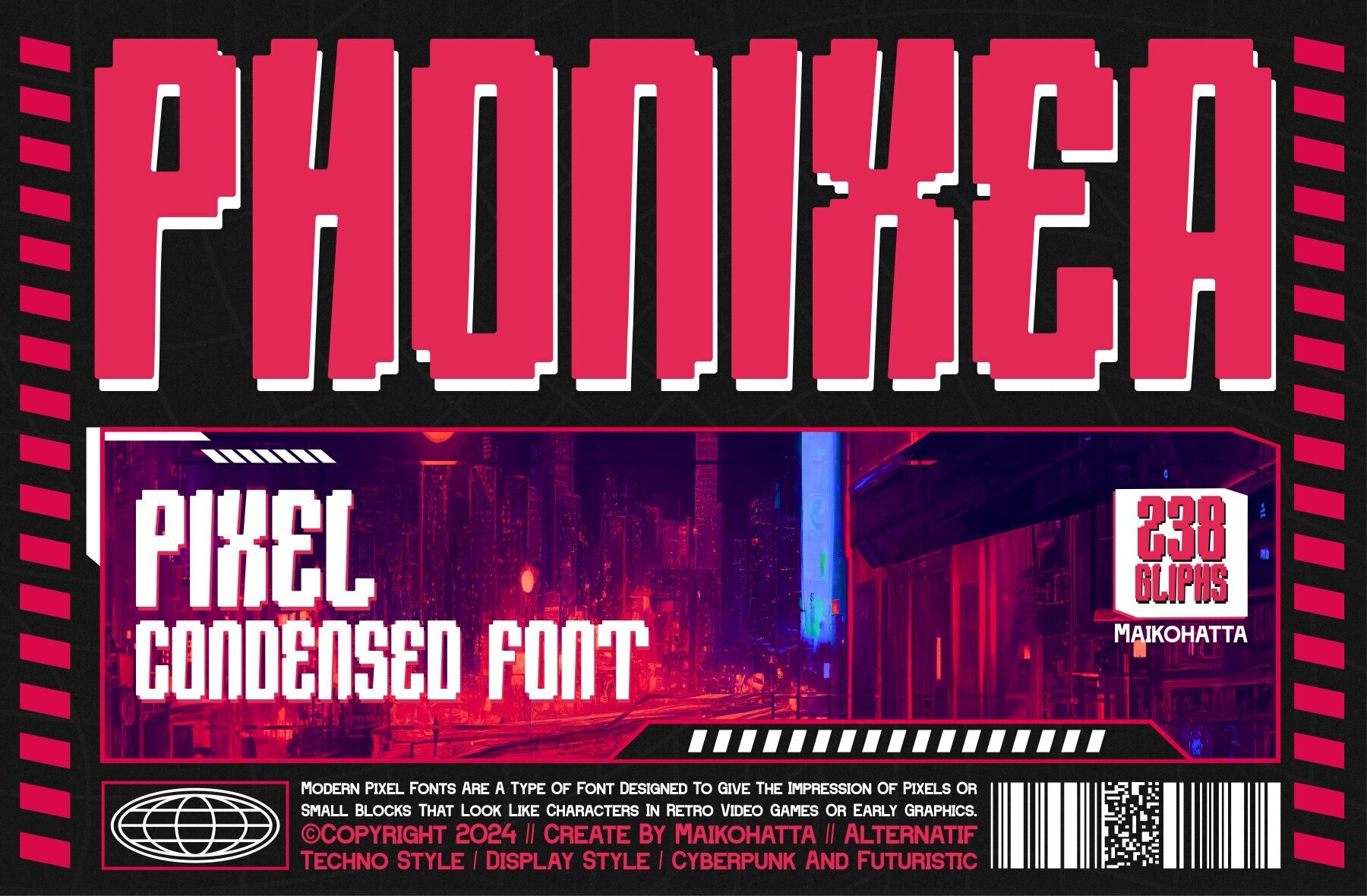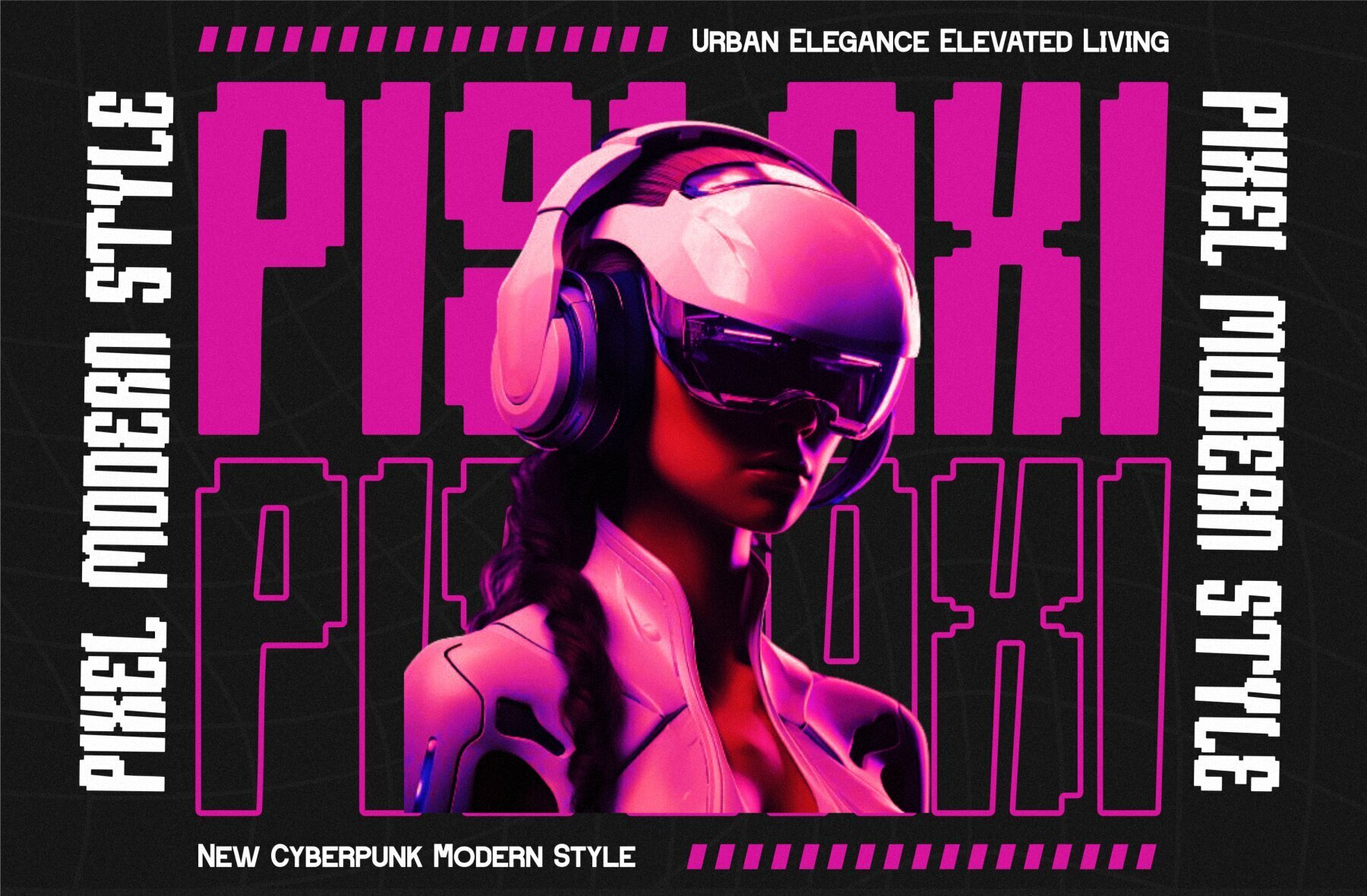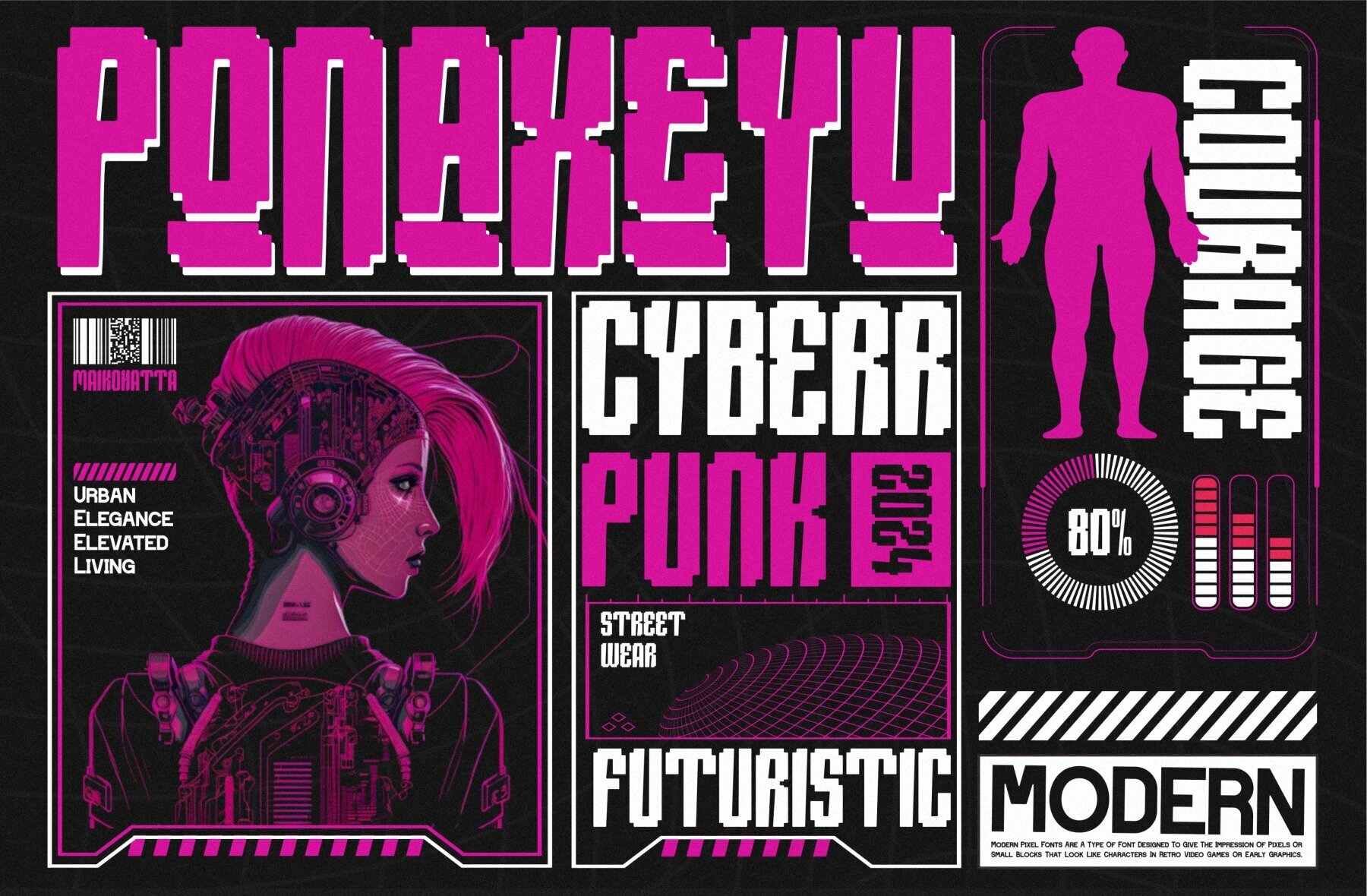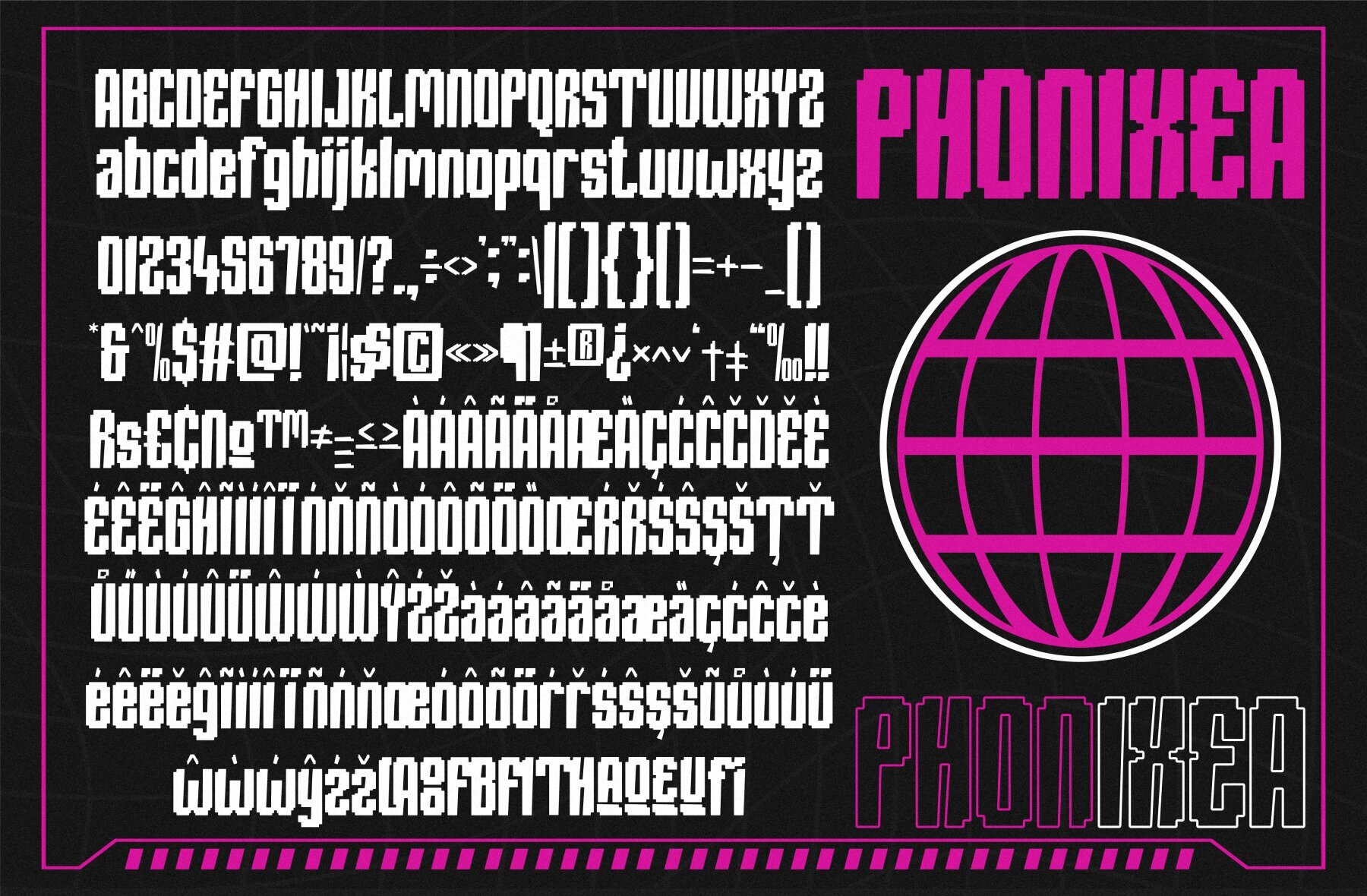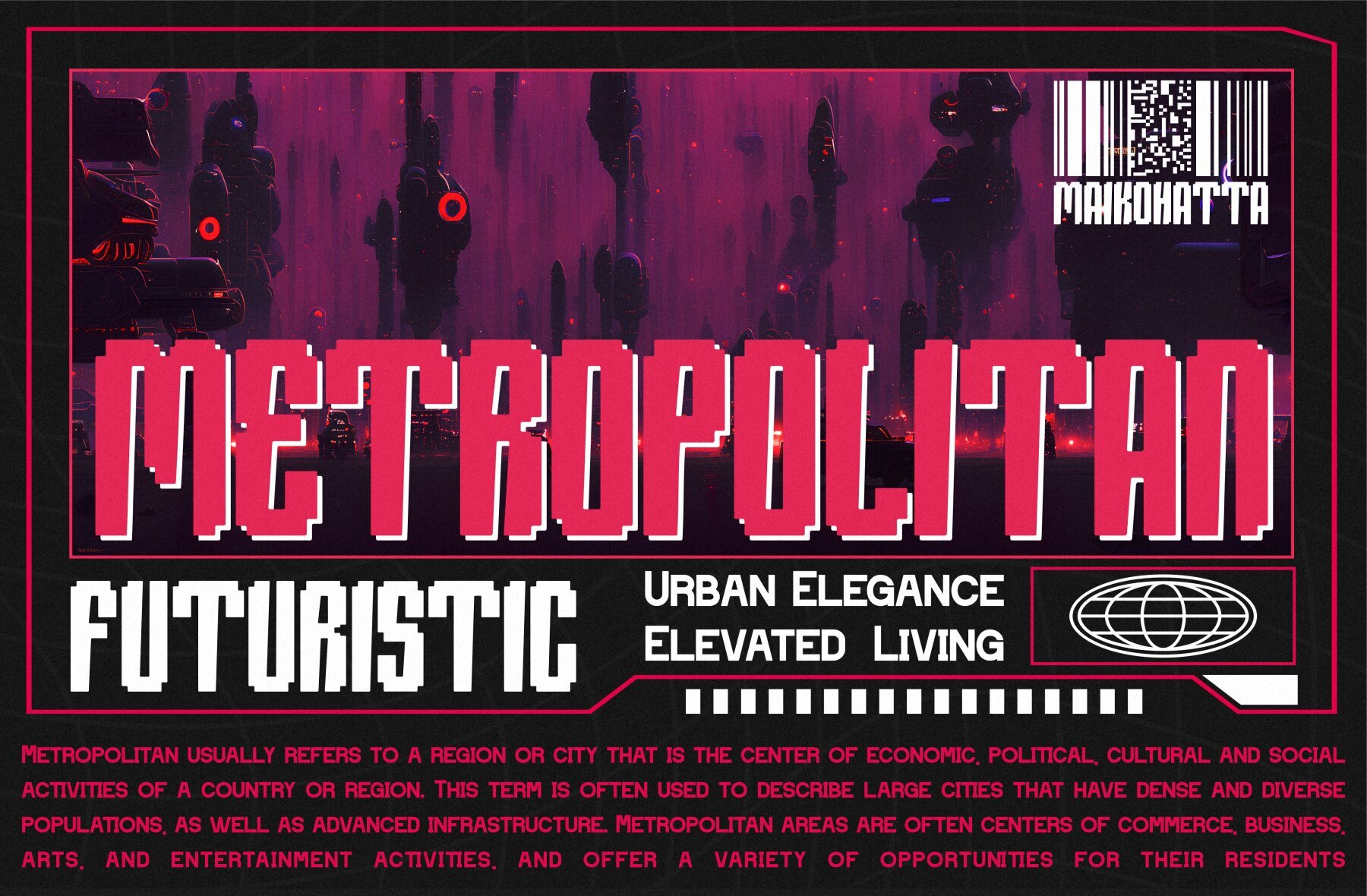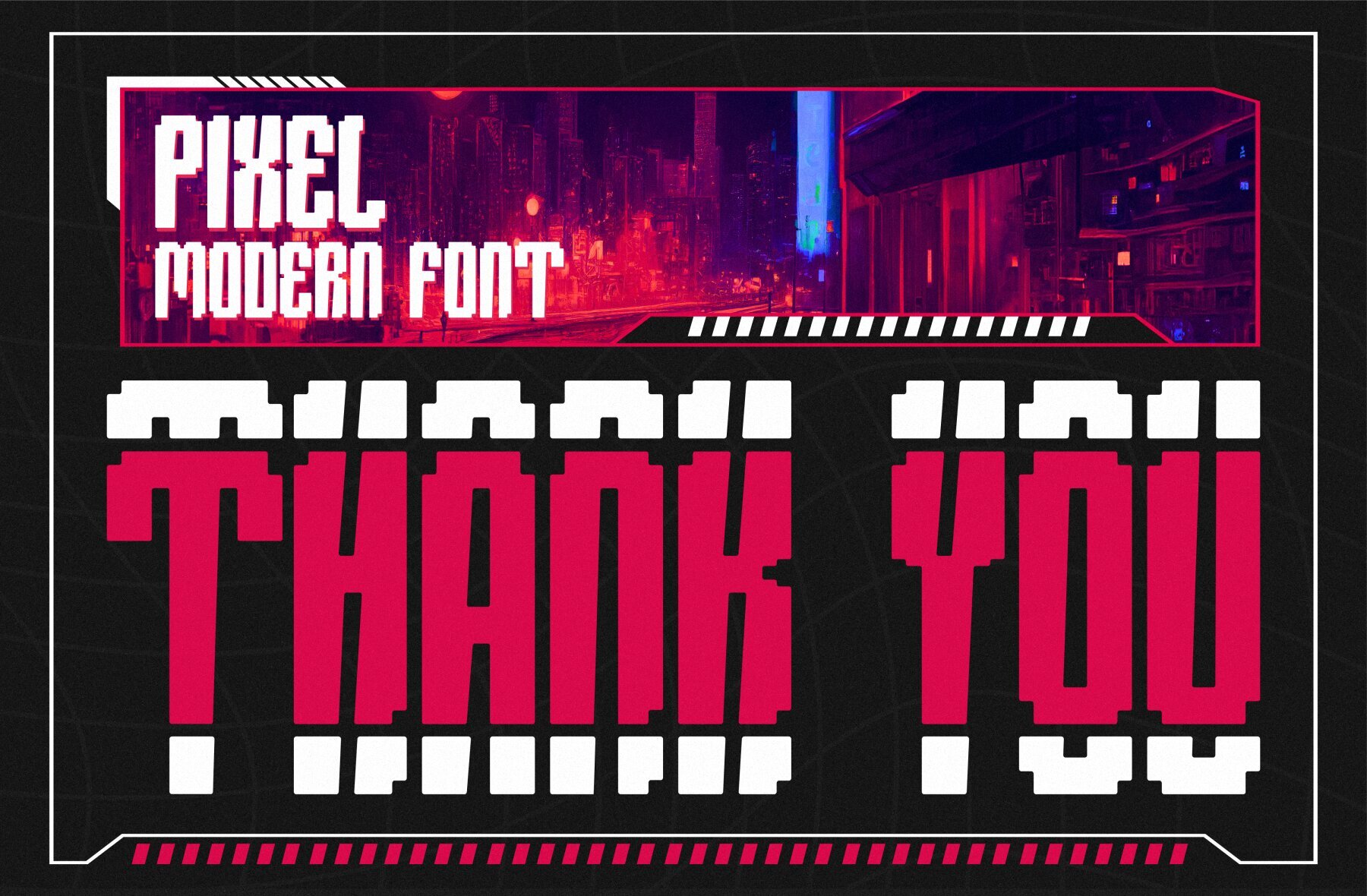
Phonixea Font
Phonixea Regular
The Phonixea font embodies a futuristic design that draws inspiration from the era of advanced technology. It captures the essence of modernity, innovation, and energy, making it an ideal choice for projects that aim to reflect the digital age. With its sharp lines, geometric letter shapes, and futuristic aesthetics, Phonixea is perfect for use in technology, robotics, science, and modern lifestyle projects. This font is often utilized in creating logos, website designs, posters, and other creative endeavors that require a distinct futuristic touch.Phonixea: Pixel Condensed Font Inspired by Future Technology
Features of Phonixea